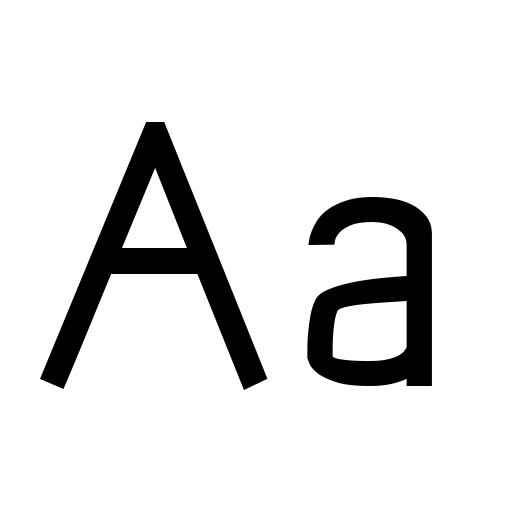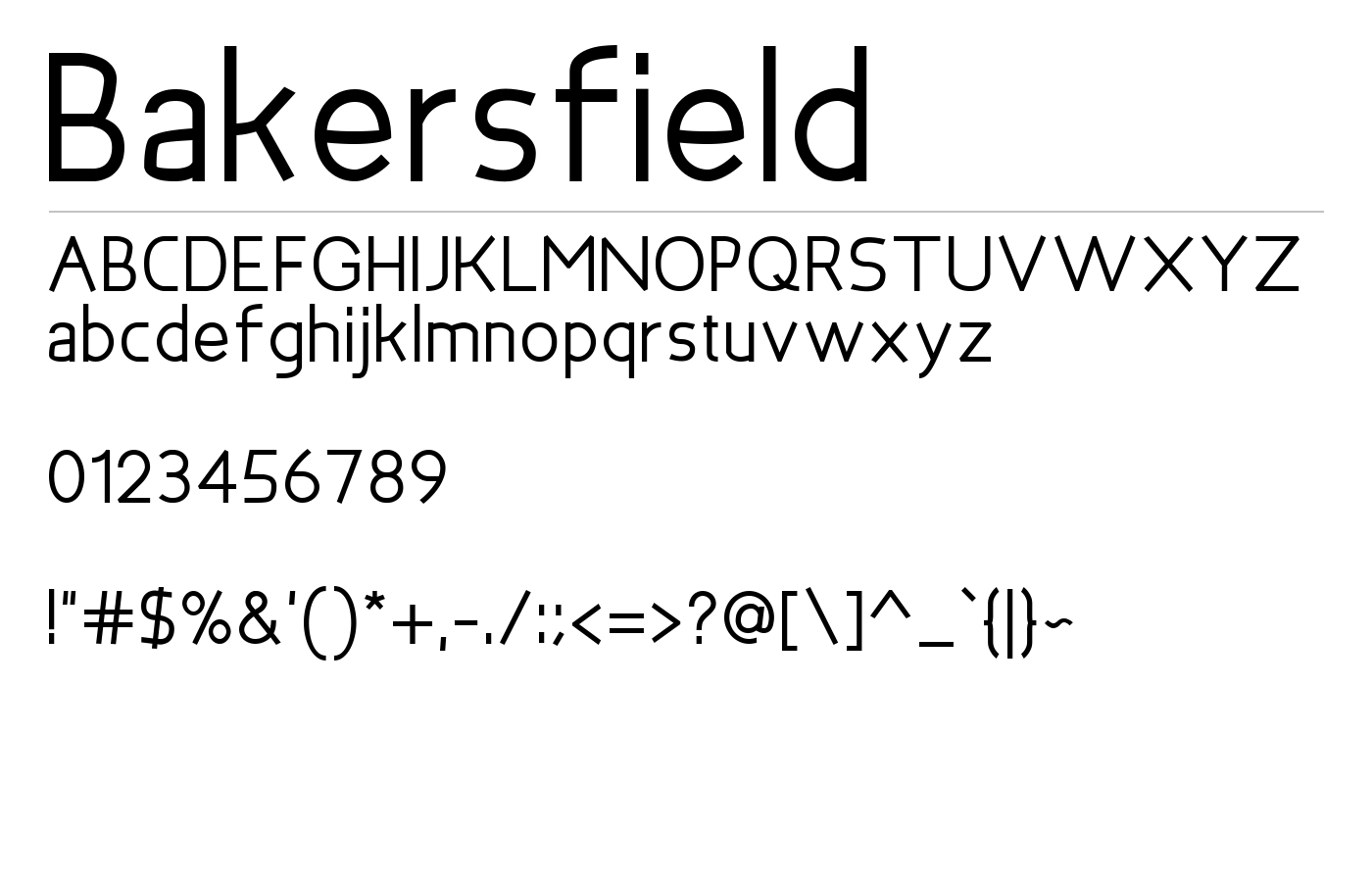
Bakersfield is a clean and modern sans serif font with a light weight and a slightly condensed width, giving it a sleek and refined appearance. Its uniform stroke contrast and simple geometric shapes make it highly legible and versatile, ideal for contemporary branding, editorial design, and digital interfaces. This font’s understated elegance and clarity make it well-suited for projects seeking a professional yet approachable tone.
Bakersfield Font
About Bakersfield Font
| Font family | Bakersfield Font |
| Designer | Osama El Khalfaoui |